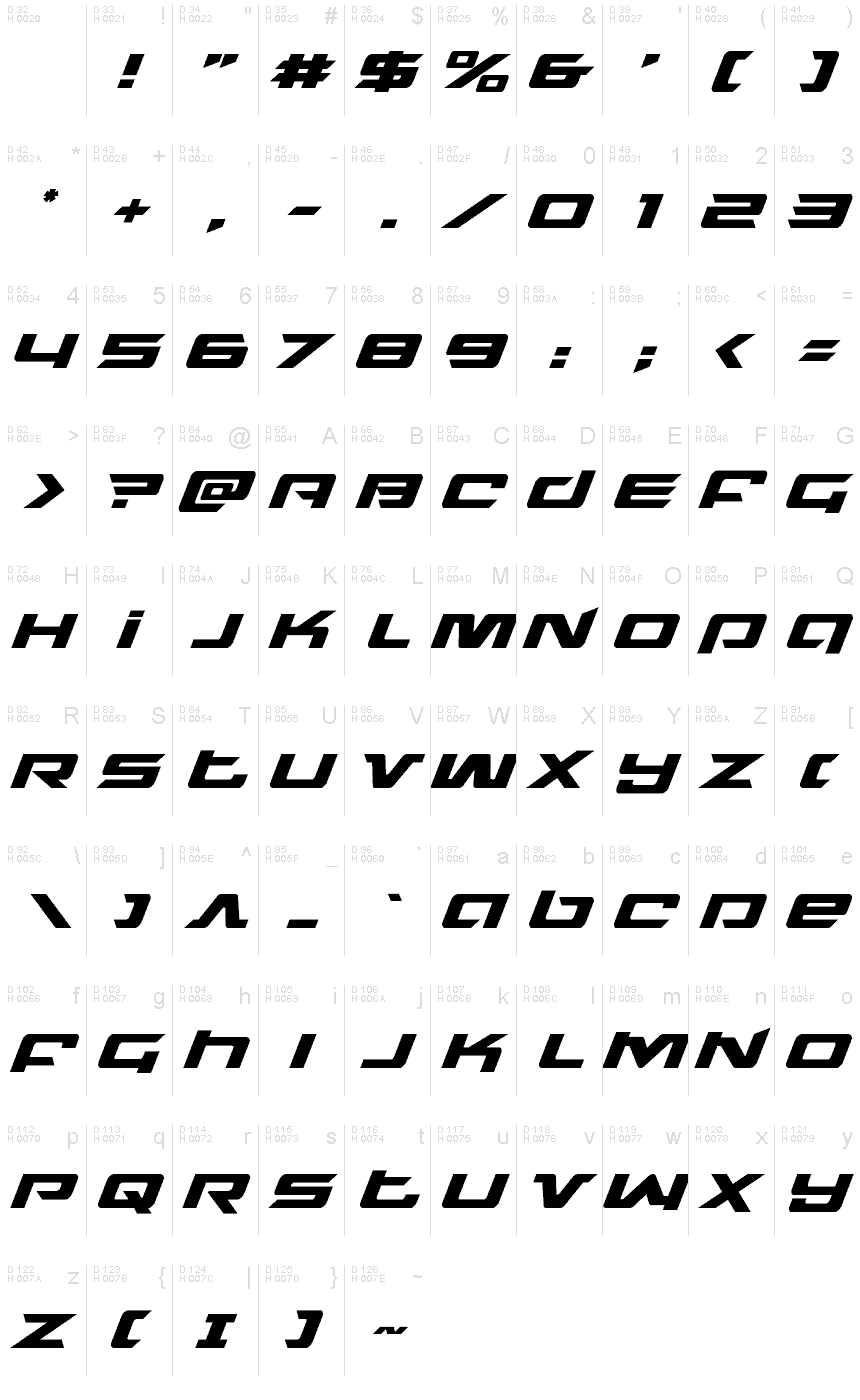
Northstar Super-Italic
Northstar Super-Italic is a futuristic, expanded font that exudes a sleek, cutting-edge aesthetic. Designed by Daniel Zadorozny, this display typeface boasts an angular, geometric style that evokes a sense of technological sophistication. The exaggerated italic slant and elongated letterforms create a dynamic, forward-moving visual rhythm, making Northstar Super-Italic an impactful choice for headlines, logos, and other display-oriented design applications. Its bold, distinctive personality lends itself well to branding, advertising, and multimedia projects that require a strong, contemporary typographic presence.
Its versatility extends beyond the digital realm, as Northstar Super-Italic's expansive width and distinct character can also make a striking impression in print, packaging, and environmental graphics. The font's futuristic flair and expressive personality make it a compelling option for design projects that aim to convey a sense of innovation, progress, and technological prowess.